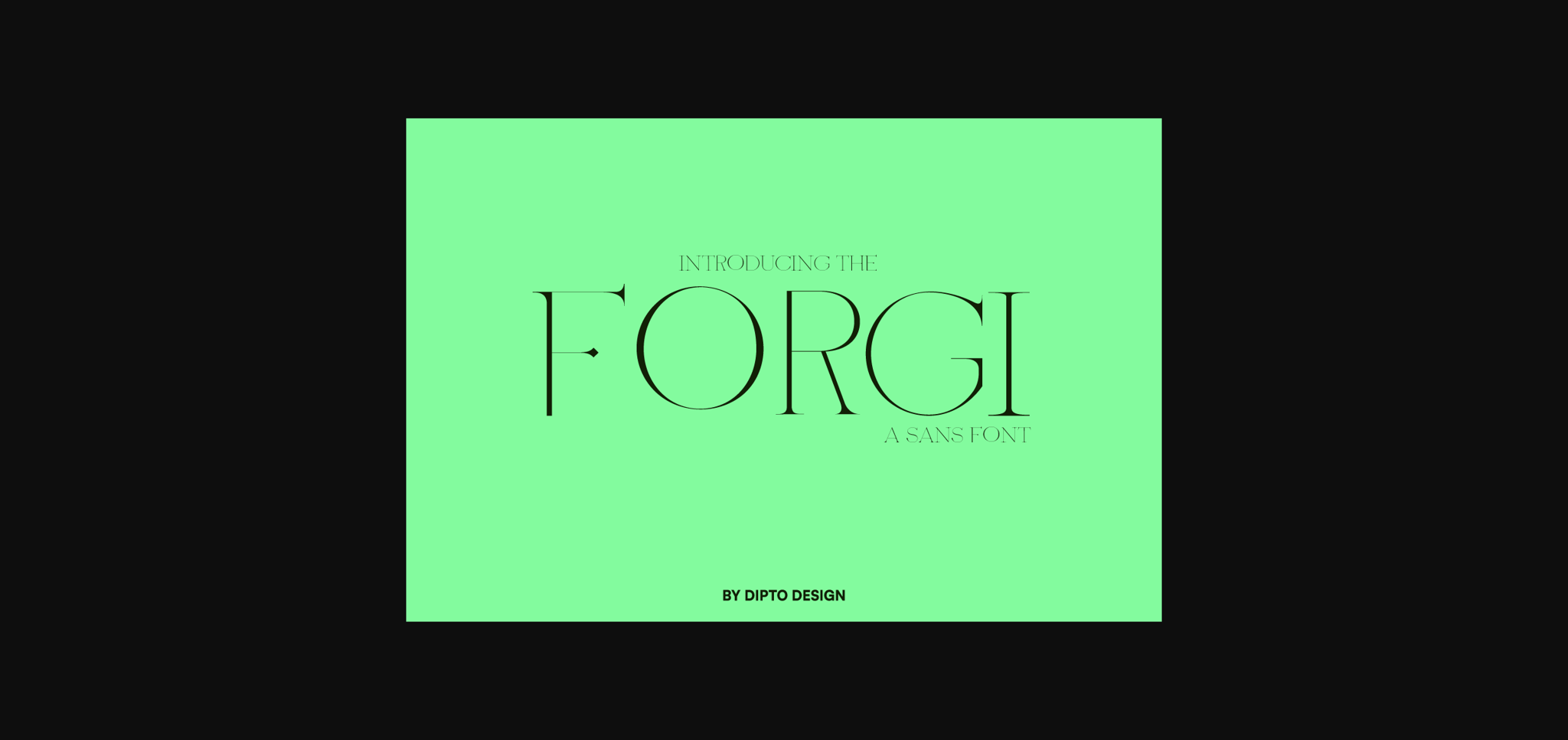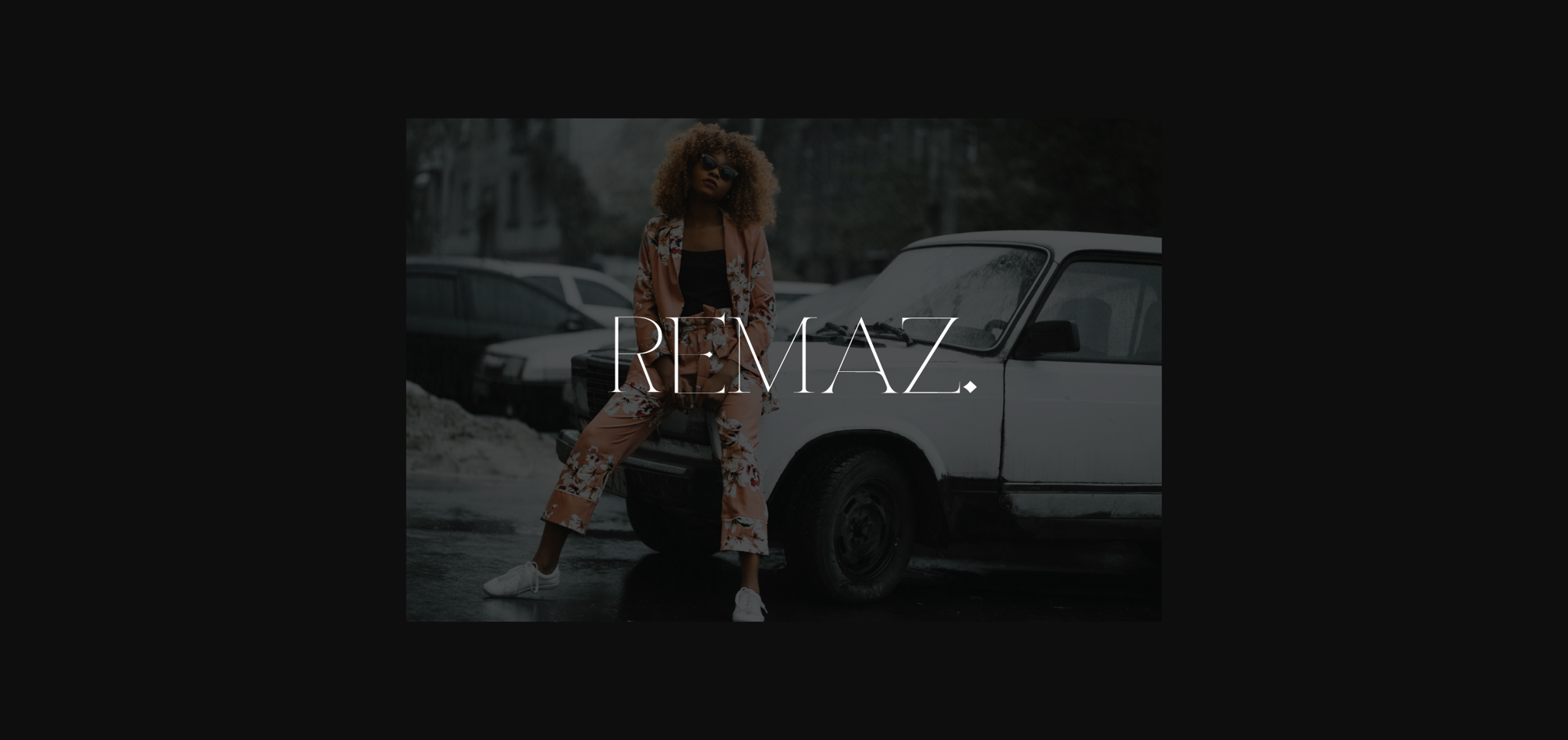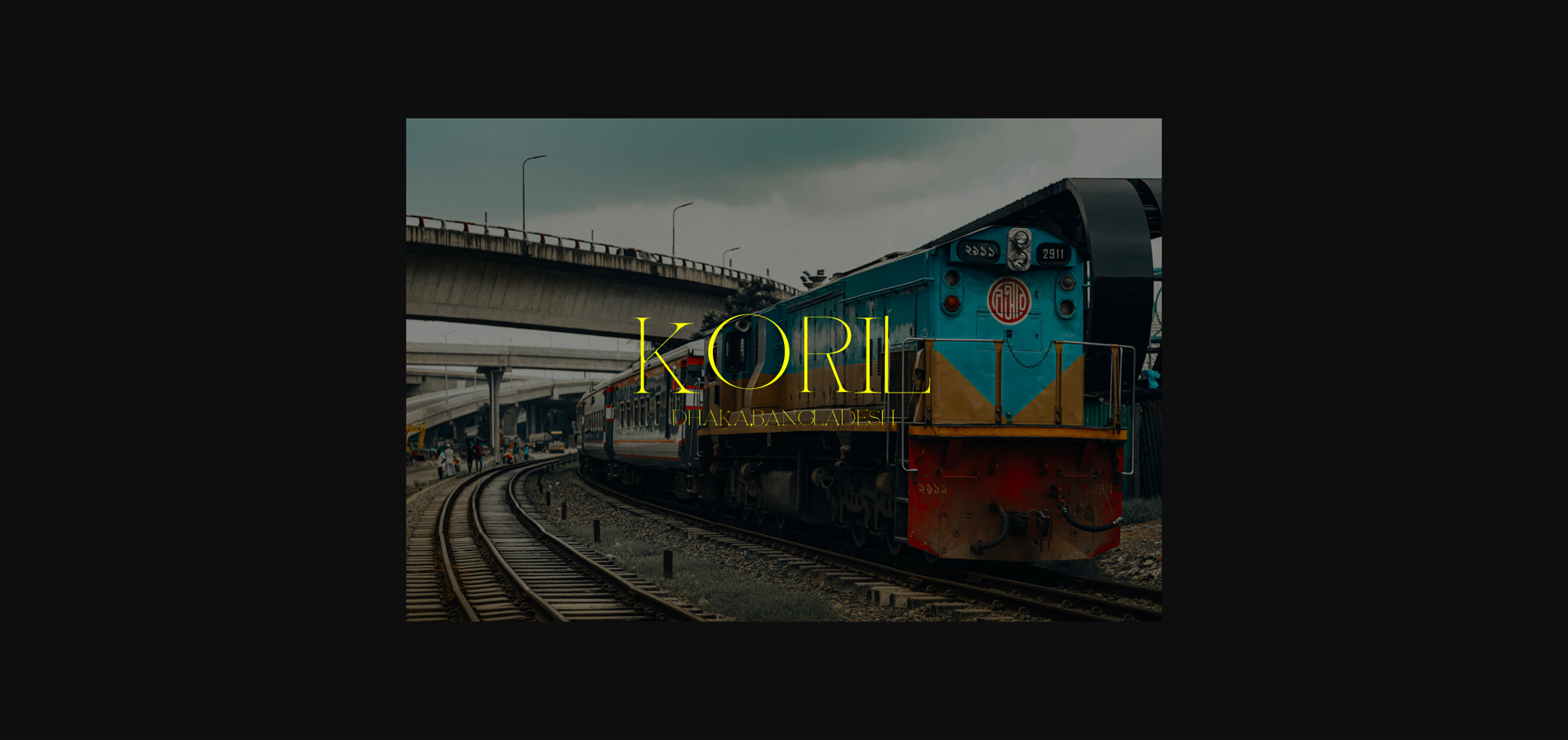
Forgi Font
About Forgi Font
Forgi is not your average sans serif font. It’s a typeface crafted with intention, designed to leave a lasting impression. Its clean lines exude an air of sophistication, while its subtle boldness hints at unwavering resilience.